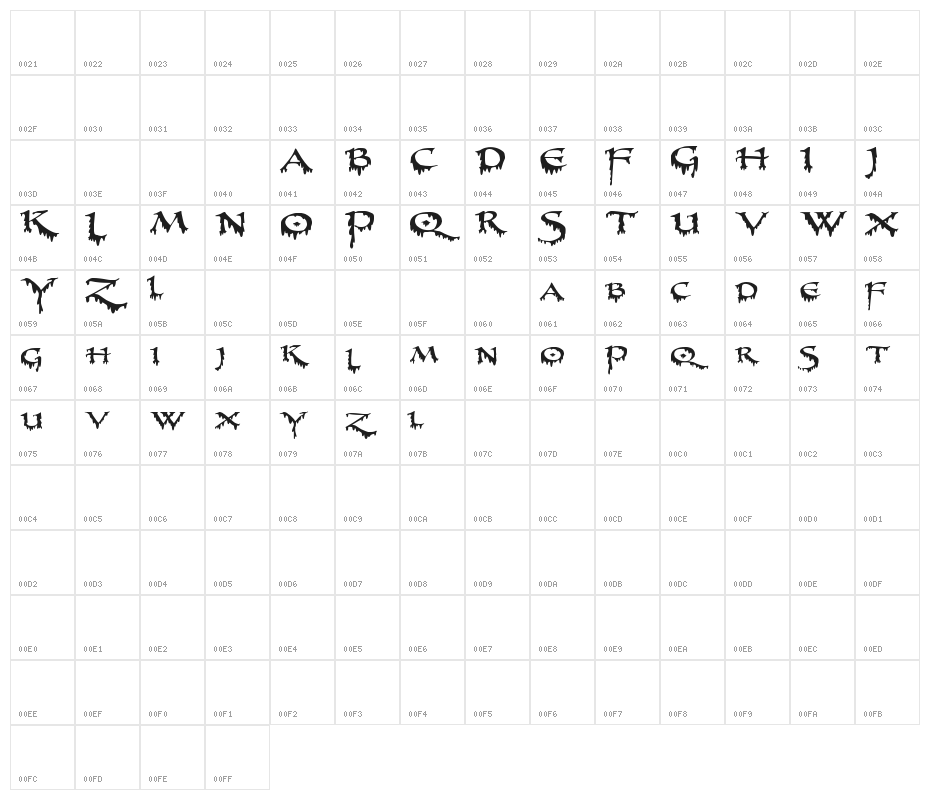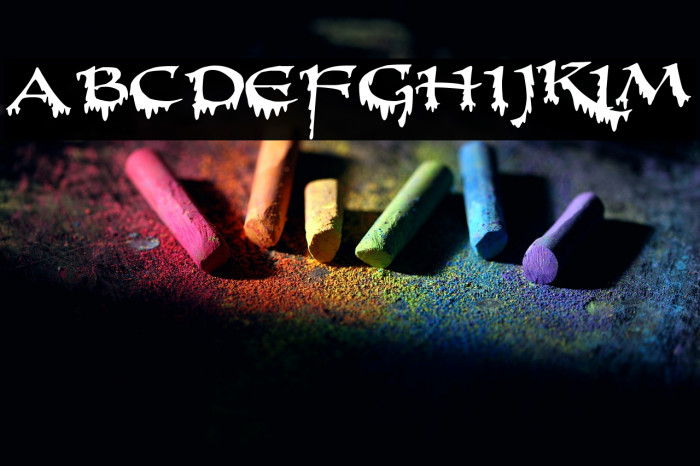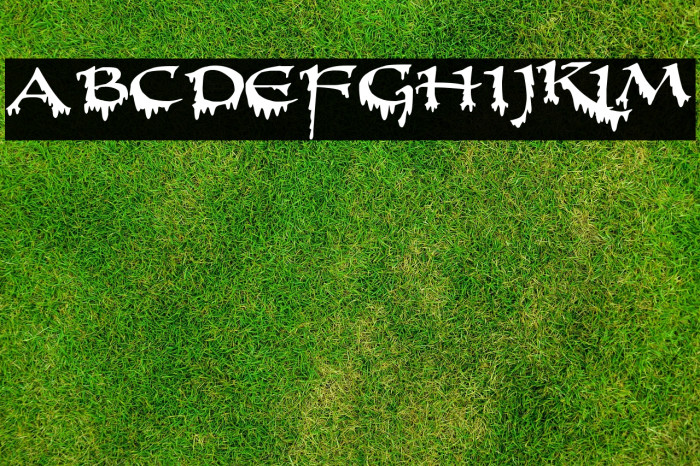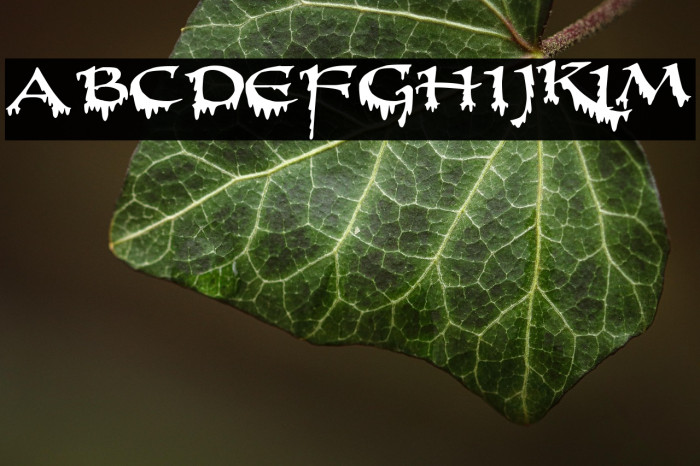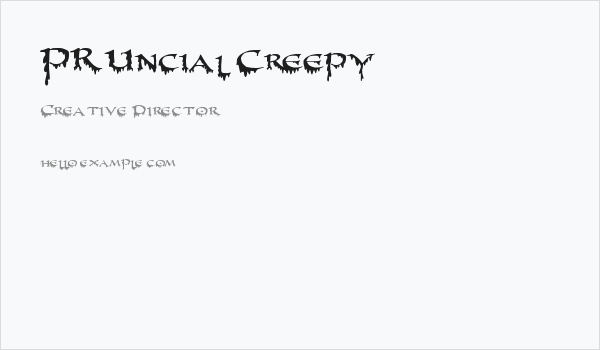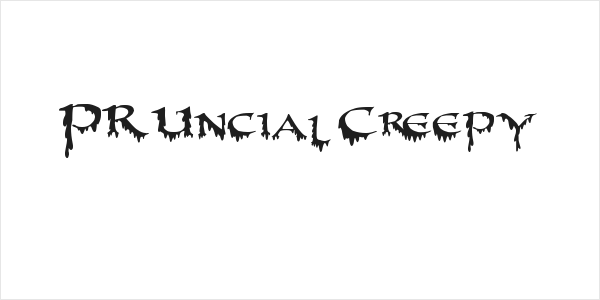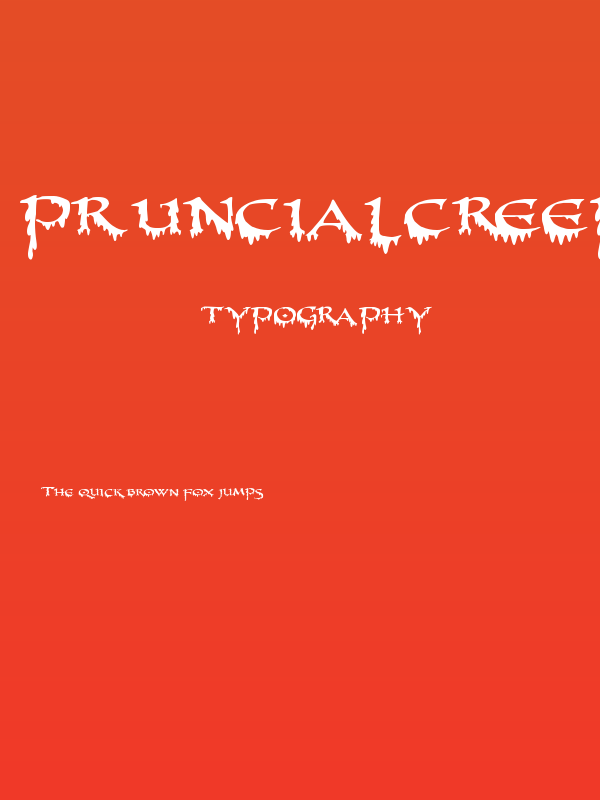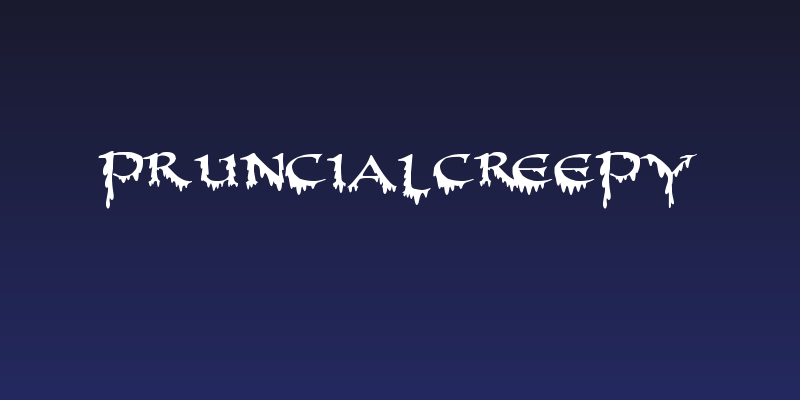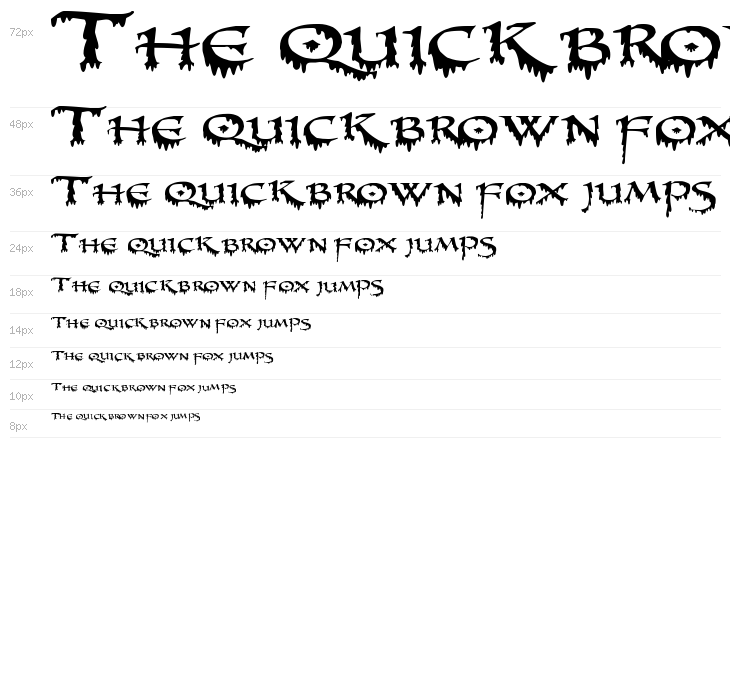
PR-Uncial Creepy Font
PR-Uncial Creepy Description
This font features a distinctively eerie and gothic style, with each character appearing as though it is dripping or melting. The uppercase and lowercase letters maintain a consistent theme, with sharp edges and elongated forms that enhance its creepy aesthetic. The design is reminiscent of horror-themed or Halloween-inspired typography, making it ideal for projects that require a spooky or unsettling vibe. The characters are bold and have a high contrast in stroke thickness, which adds to the dramatic and eye-catching nature of the font. The spacing between characters is relatively tight, contributing to the compact and intense appearance of the text.
| Proposed Projects | Ideal for Halloween invitations, horror movie posters, haunted house flyers, and themed event branding. |